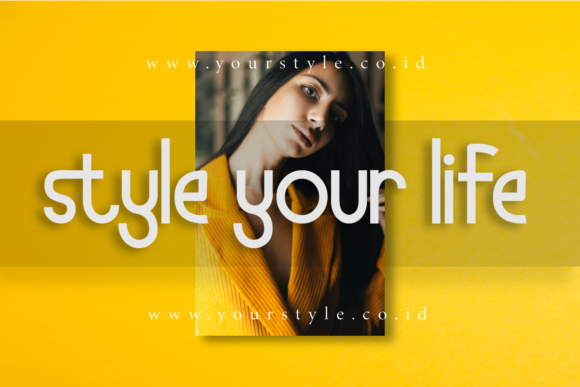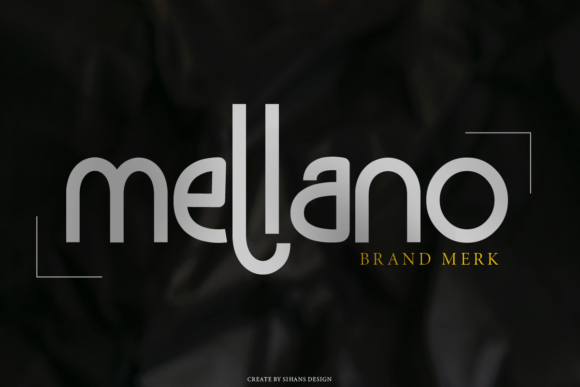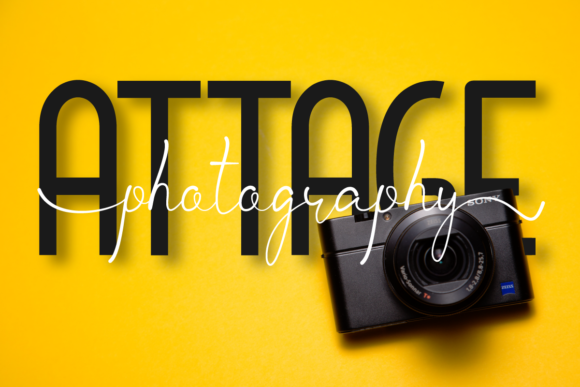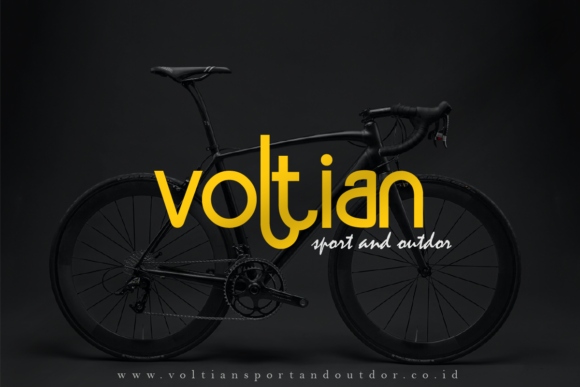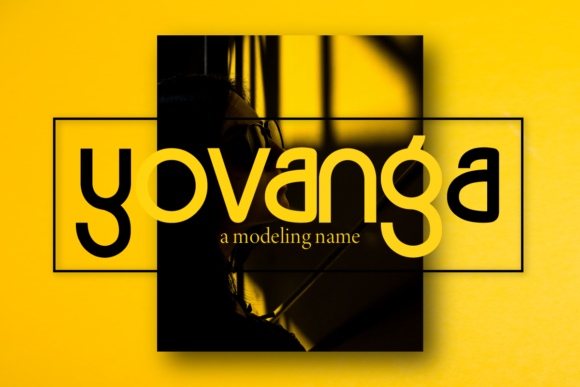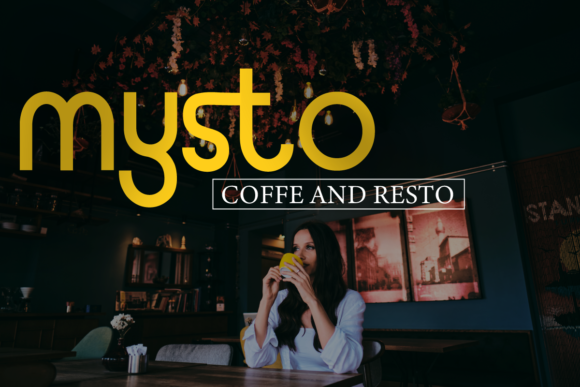
Introduction to Galleon Font
Galleon is a modern and minimalist display font.
This font is ideal for writing web designs, business cards, or pretty much anything else that requires a unique touch .